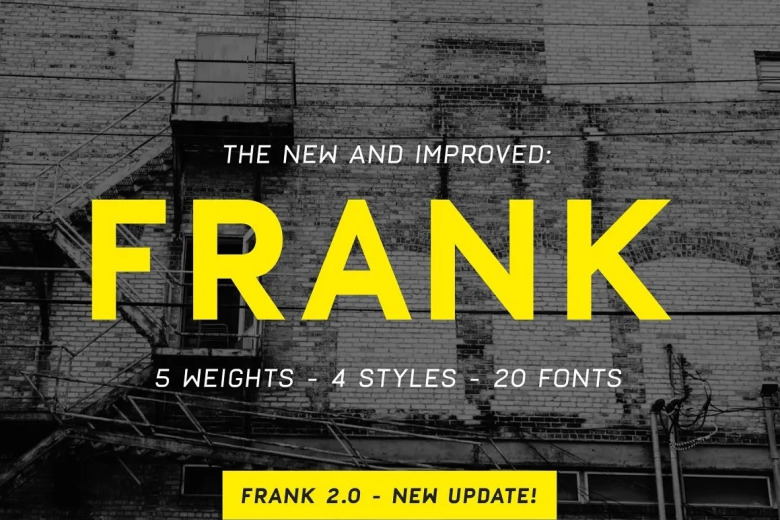
Frank Font
Frank is a sans serif font family inspired by the classics DIN, Eurostile and a dash of Futura. Perfect for branding projects, Logo design, Clothing Branding, product packaging, magazine headers, or simply as a stylish text overlay to any background image.
Frank Sans Serif Font Family